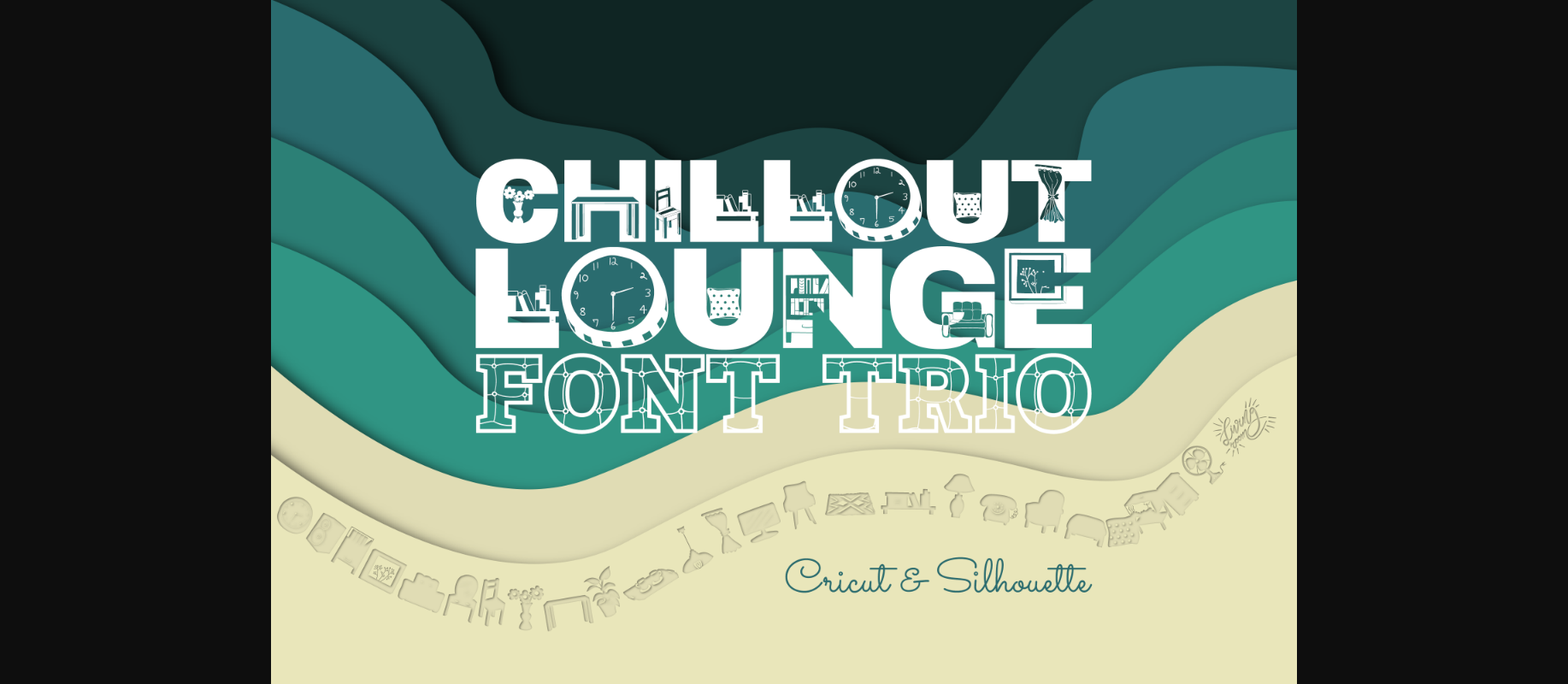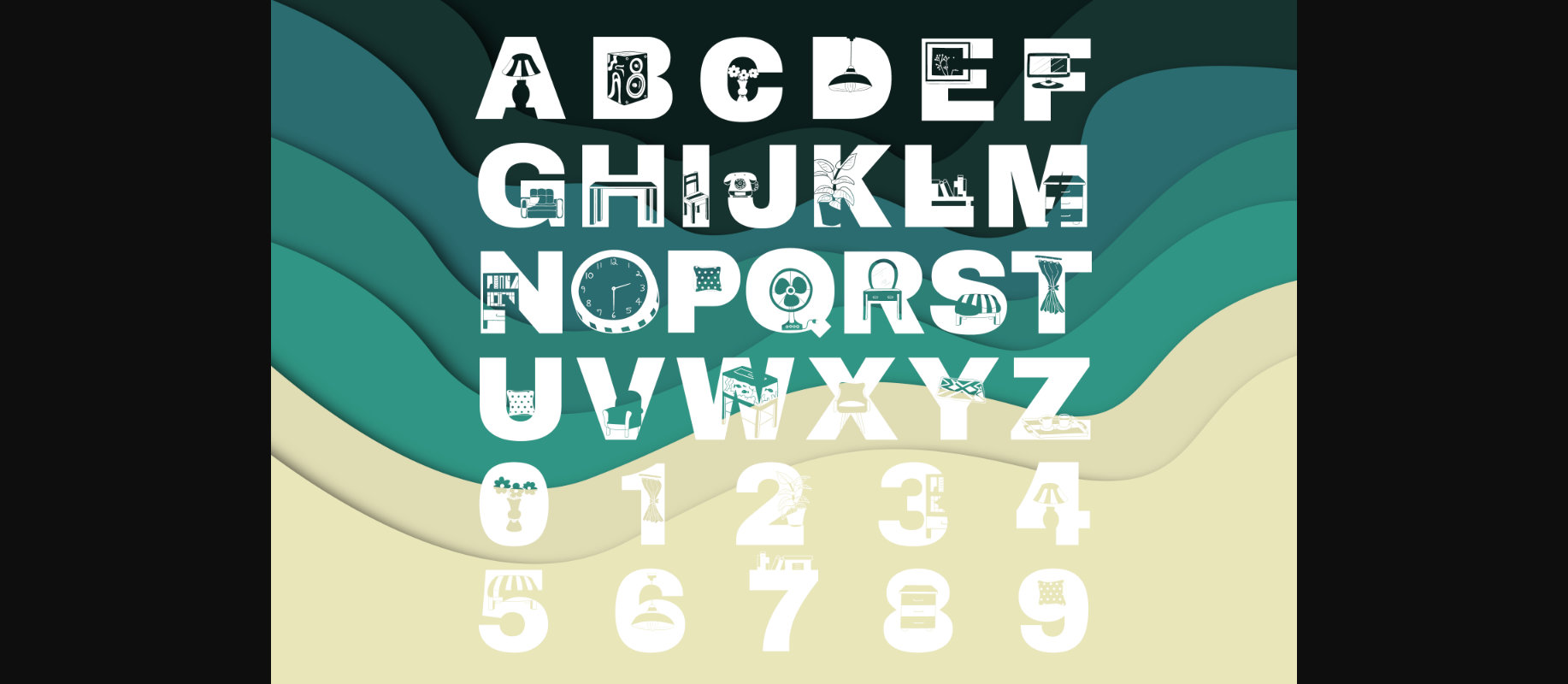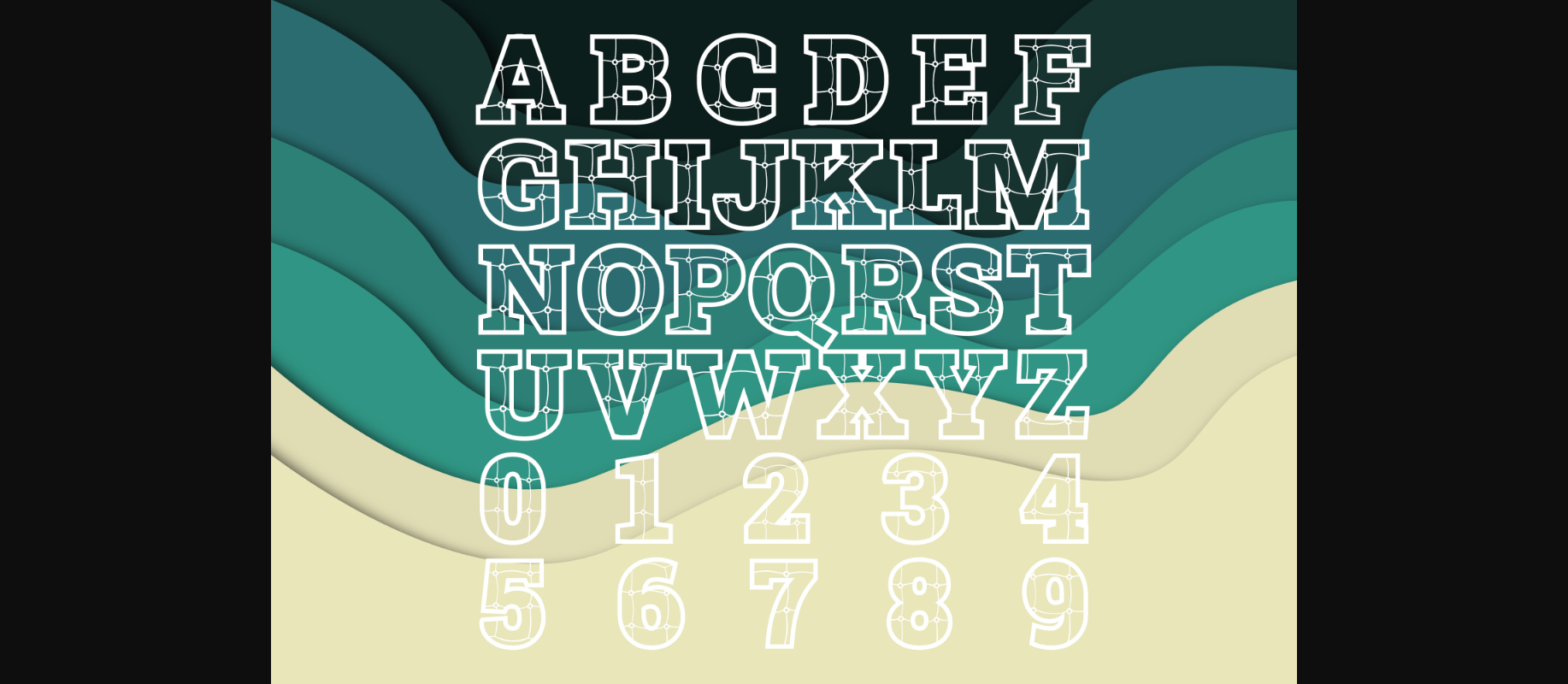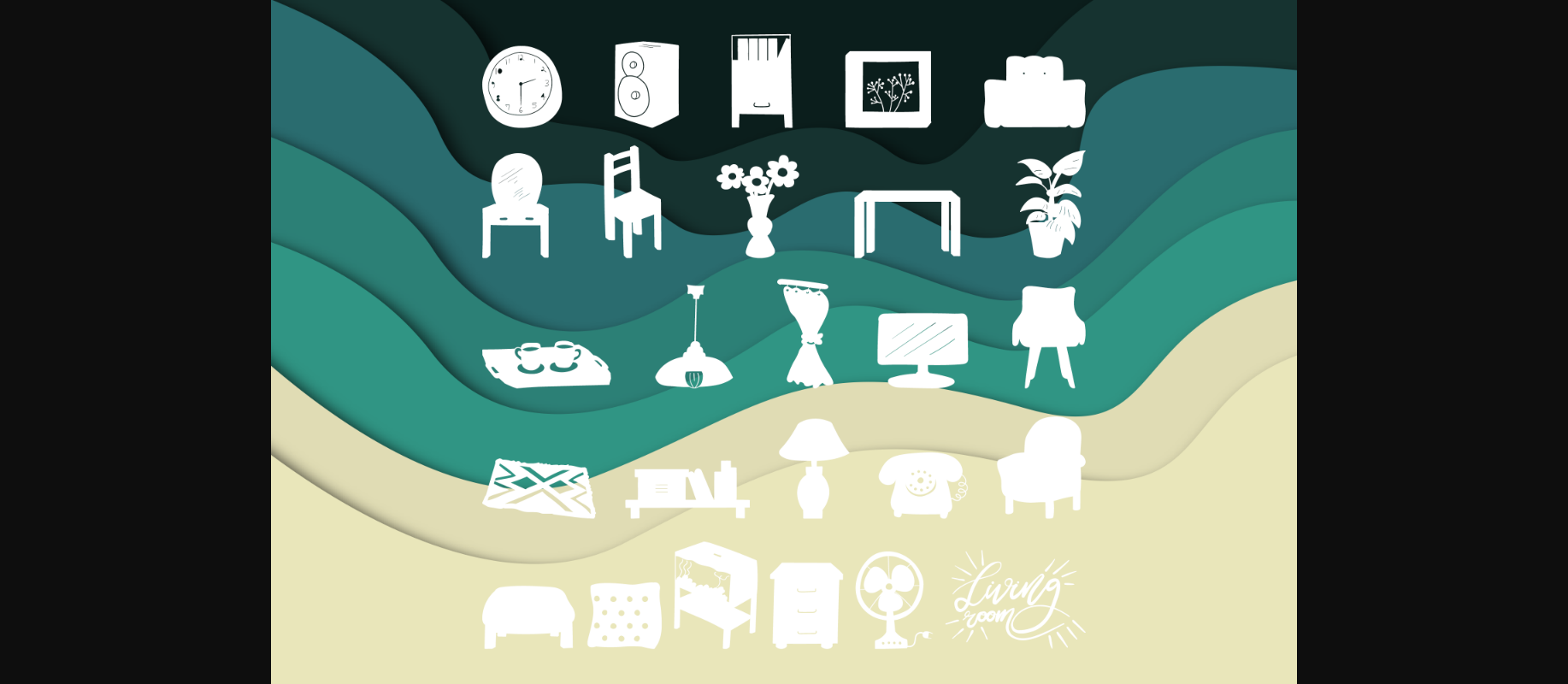
About Chillout Lounge Font
Chillout lounge is an incredibly cool duo font (decorative and dingbats). Whether you use it for cartoon-related designs, children’s games, or any other creation that requires a friendly touch, this font will be a perfect choice!